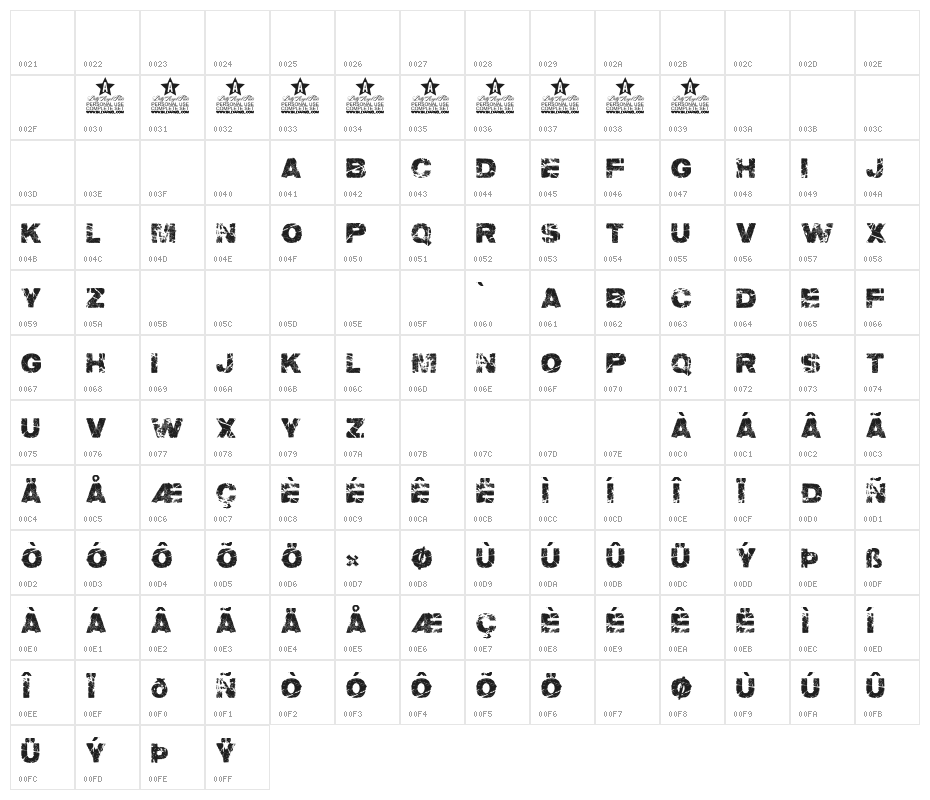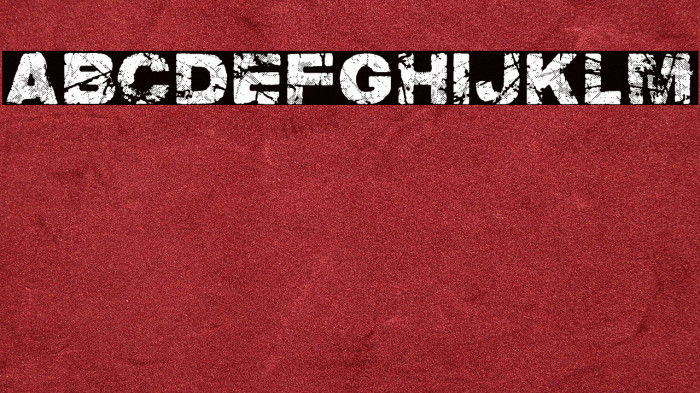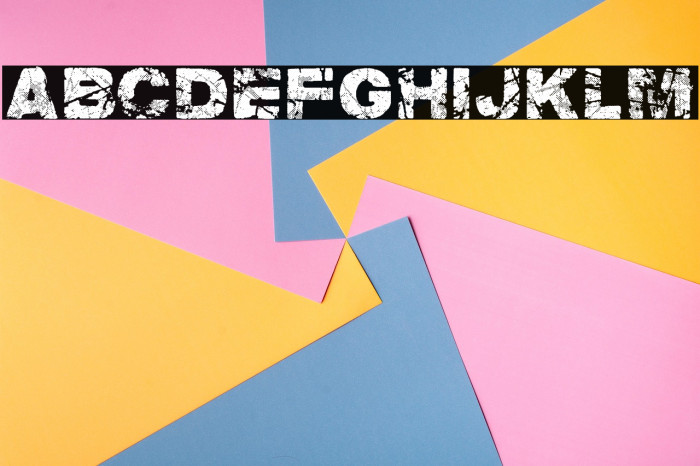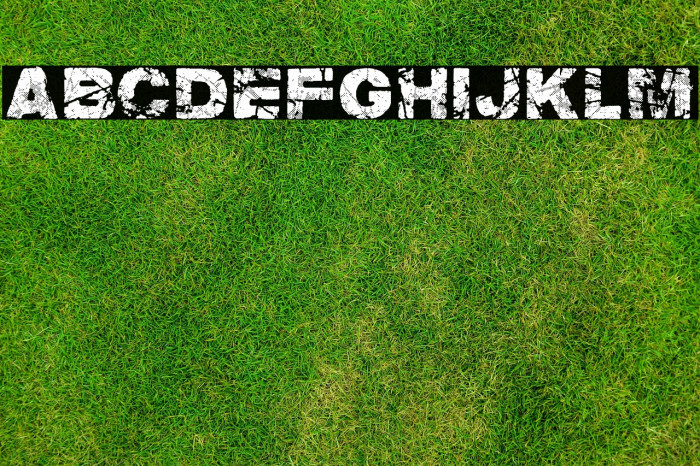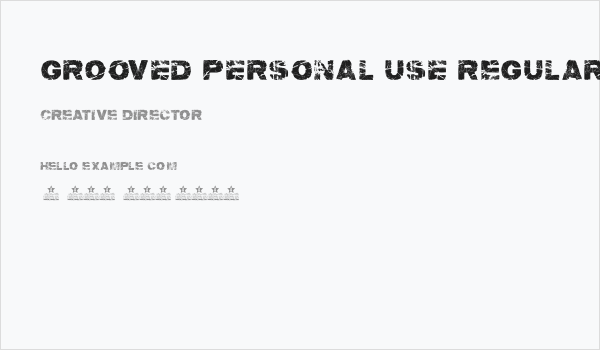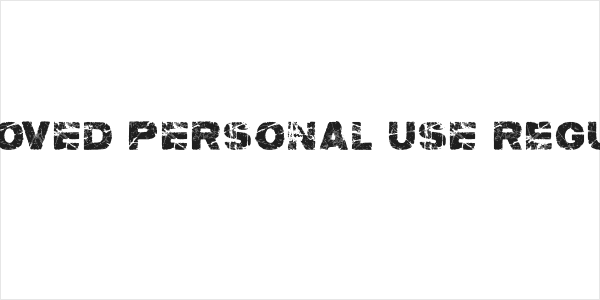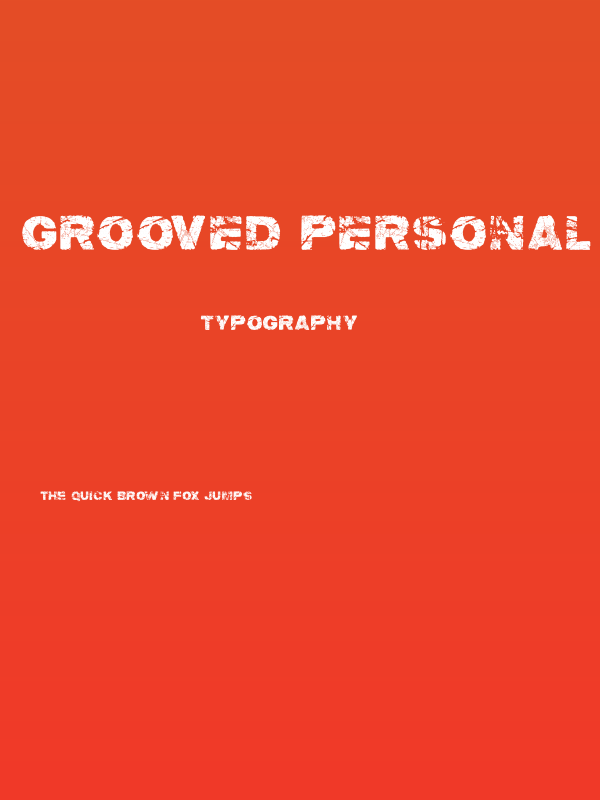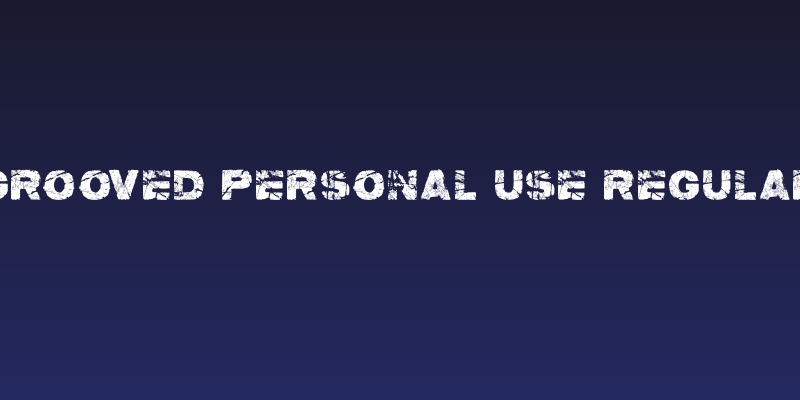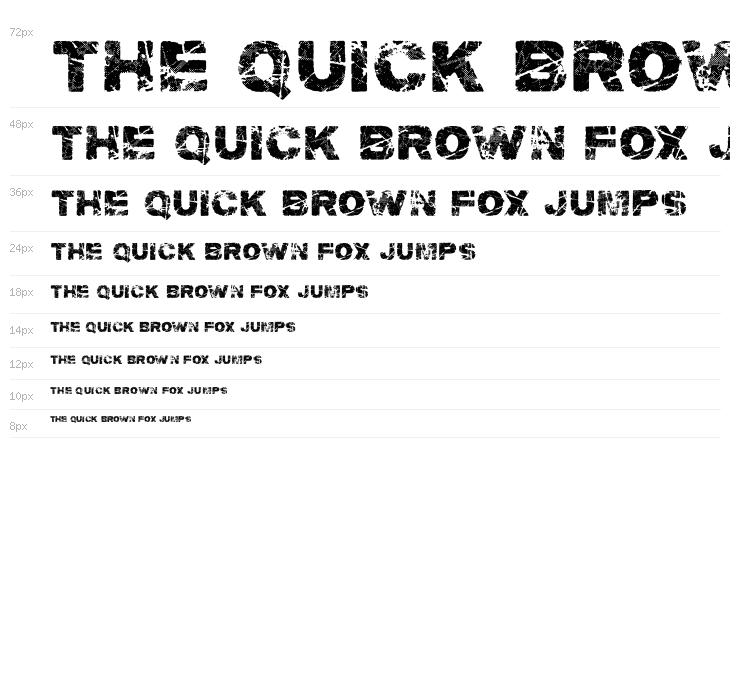
groOvEd PERSONAL USE Regular Font
groOvEd PERSONAL USE Regular Description
This font features a distressed, grunge aesthetic with a bold and rugged appearance. Each character is designed with a textured, worn-out look, giving it a unique and edgy style. The uppercase letters are prominent and impactful, making them ideal for attention-grabbing designs. The font's uneven edges and rough texture create a sense of movement and dynamism, perfect for projects that require a bold statement. Its distinct style is reminiscent of urban street art or vintage rock band posters, making it versatile for various creative applications.
| Overall Style | Grunge, Urban, Edgy |
| Proposed Projects | Ideal for music album covers, posters, t-shirt designs, and branding for edgy or alternative brands. |